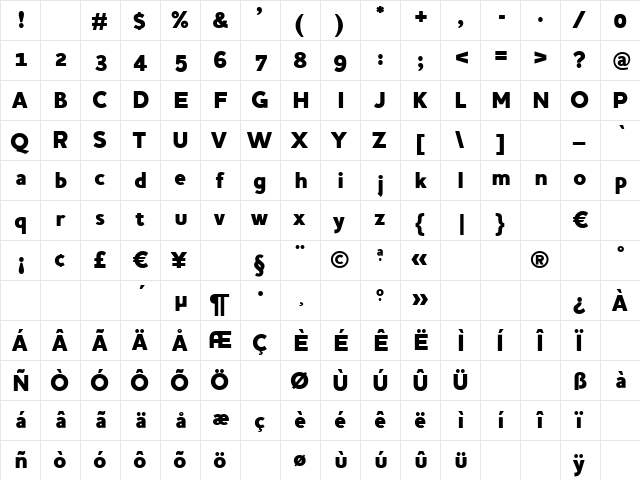
HouschkaAltHeavy Regular Font Preview
HouschkaAltHeavy Regular
HouschkaAltHeavy Regular Font Details
Design Context for HouschkaAltHeavy Typeface
HouschkaAltHeavy is a composed and adaptable typeface that performs quietly and consistently across a wide range of design contexts.
Pro Tip: Pair HouschkaAltHeavy with a font of contrasting weight or personality to build a more expressive typographic hierarchy.